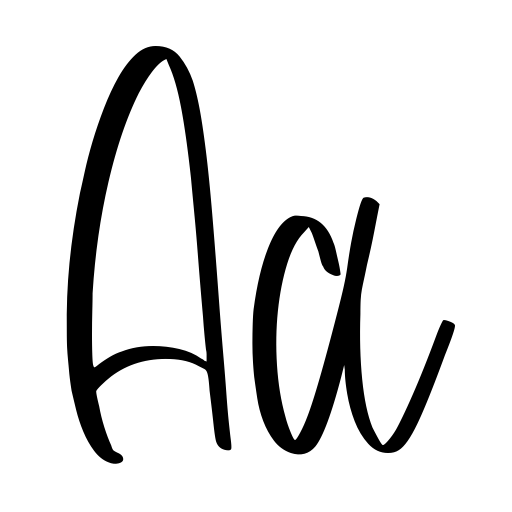
Beautiful Barbie is a playful and elegant script font with a hand-drawn feel, featuring smooth, flowing strokes and a casual yet refined style. Its moderately tall x-height and consistent weight make it highly readable while maintaining a charming, personal touch, perfect for projects that want to convey warmth, creativity, and friendliness. This font works wonderfully for branding, invitations, social media graphics, and any design seeking a modern, approachable, and stylish handwritten look.
Beautiful Barbie Font
About Beautiful Barbie Font